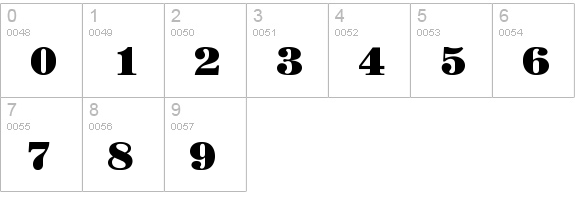
Madison Bold is a strong, high-contrast variant in the Madison typeface family \xE2\x80\x94 well suited to headlines, attention-grabbing titles, and strong calls-to-action.
Madison Bold font is a bold and striking typeface that exudes confidence and elegance. With its clean lines and strong presence, this font is sure to make a statement in any design project. The bold weight of Madison Bold adds a touch of power and authority, making it perfect for headlines, titles, and logos. What sets Madison Bold apart is not only its design, but also the fact that it is available for free. Yes, you read that right – this amazing font can be freely downloaded at FontsMarket.com. This means that you can have access to this premium-quality typeface without spending a dime. Whether you are a professional designer or a casual user looking to add a touch of sophistication to your project, Madison Bold font is the perfect choice. Its versatility allows it to be used in a variety of design applications, from print materials to digital designs. With Madison Bold font, your designs will stand out from the crowd. Its bold and commanding presence will captivate viewers and leave a lasting impression. So why wait? Go ahead and download Madison Bold font for free at FontsMarket.com and elevate your design to a whole new level of excellence.